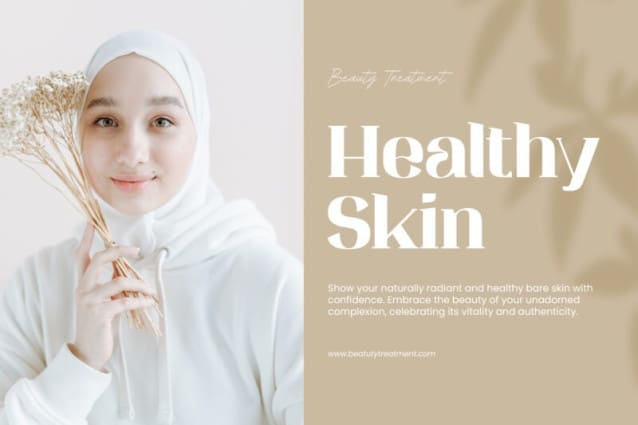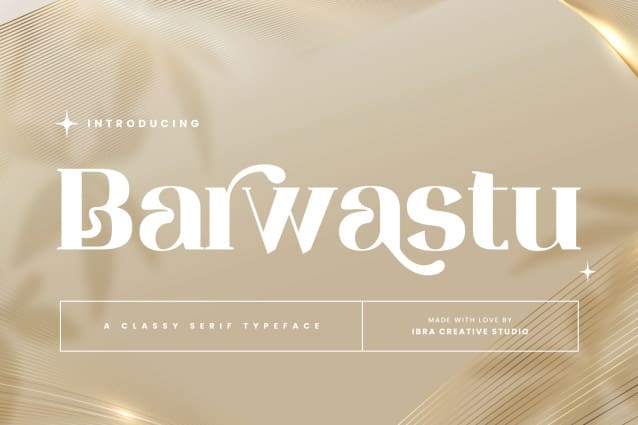
Barwastu Font
Barwastu Font, a refined serif typeface, epitomizes timeless elegance with its meticulous design and sophisticated aesthetic. The graceful curves and distinctive serifs of Barwastu convey a sense of tradition and authority, making it an ideal choice for projects that demand a touch of class and professionalism. The well-balanced letterforms and subtle variations in stroke width contribute to its readability and versatility across various applications, from editorial layouts to branding. Barwastu Font seamlessly blends a classic sensibility with a contemporary edge, ensuring that it stands out as a distinguished and tasteful typeface in the realm of typography.